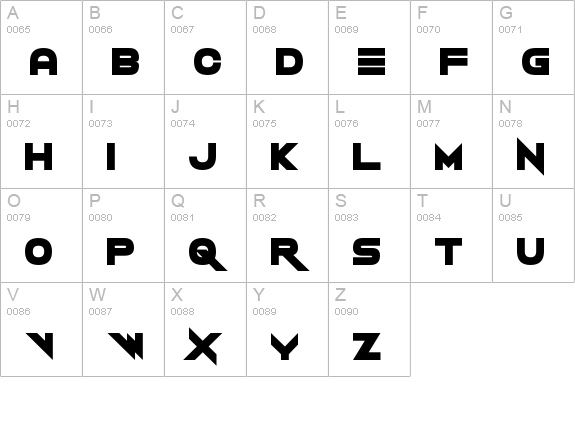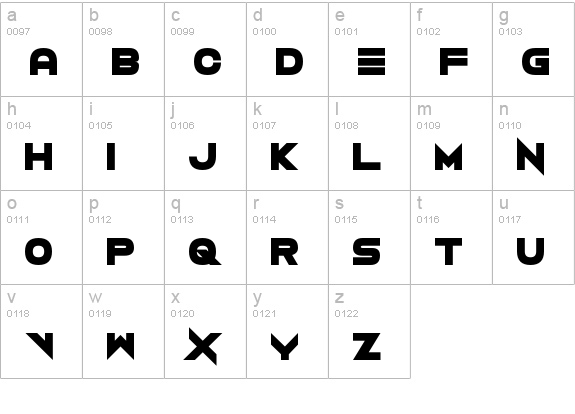
Vermin Vibes 2 Black is a free for personal use font in the Modern > Futuristic category. It has been downloaded 367 times and is available for Windows, Mac and Linux.
Vermin Vibes 2 Black font is a captivating and bold typeface that exudes a unique and edgy vibe. Its sleek and modern design makes it perfect for a wide range of creative projects, including logos, posters, and branding materials. With its thick and striking letterforms, Vermin Vibes 2 Black font demands attention and adds a touch of sophistication to any design. Its carefully crafted details give it a sense of personality and character, making it an excellent choice for those looking to make a statement. One of the best features of Vermin Vibes 2 Black font is that it is available for free. Yes, you read that right! This stunning font can be freely downloaded at FontsMarket.com, allowing designers and enthusiasts alike to access its beauty without any cost. By offering Vermin Vibes 2 Black font for free, FontsMarket.com aims to empower and inspire creativity by making high-quality fonts accessible to everyone. Whether you're a professional designer or a hobbyist, this font is a valuable addition to your collection, enabling you to bring your ideas to life with style and impact. So why wait? Head over to FontsMarket.com now and download Vermin Vibes 2 Black font for free! Unleash your creativity and let this captivating typeface elevate your designs to new heights.